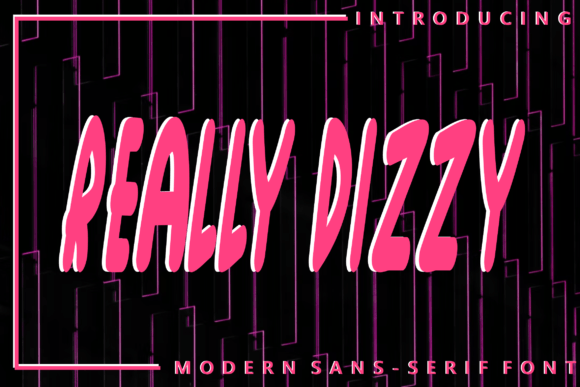
Welcome to the world of Really Dizzy, a captivating all-caps sans serif font designed to make your words dance off the page. With its distinctive letterforms and chic uppercase characters, Really Dizzy is the ultimate choice for creating stunning designs that exude a sense of playfulness and sophistication.
Unlock your creativity and let your imagination soar as you explore the boundless possibilities of Really Dizzy. Its bold and playful style is perfect for adding a touch of whimsy to wedding invitations, greeting cards, posters, and social media graphics. Create eye-catching logos and branding that will leave a lasting impression on your audience.
With Really Dizzy, the possibilities are endless. Its clean lines and crisp details make it ideal for fashion magazines, product packaging, and advertisements where every letter counts. Its versatility shines in both print and digital designs, giving you the freedom to make your words stand out in any medium.
So, embrace the charm of Really Dizzy and unleash your creativity. Let this extraordinary font lead you on a journey of visual delight and captivate your audience with designs that are truly unforgettable. Download Really Dizzy today and transform your words into works of art.